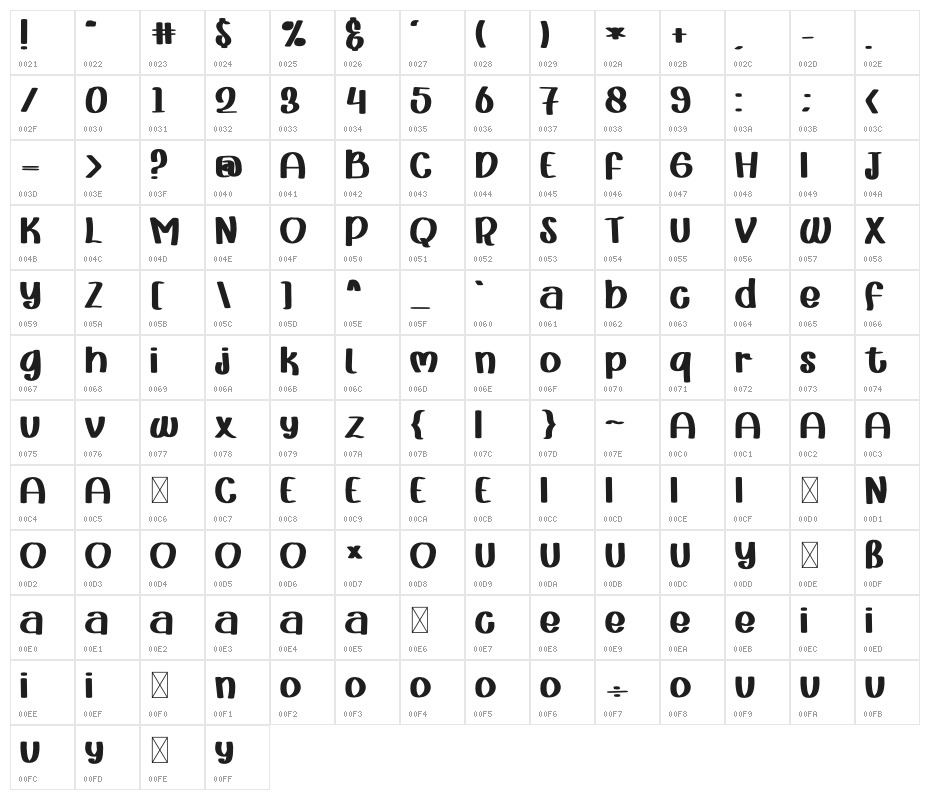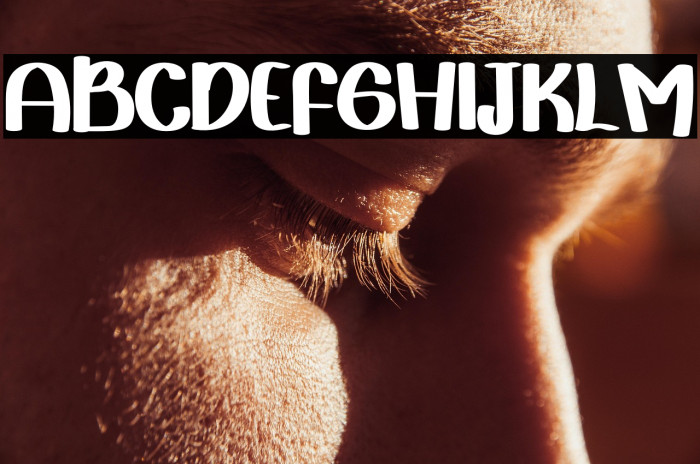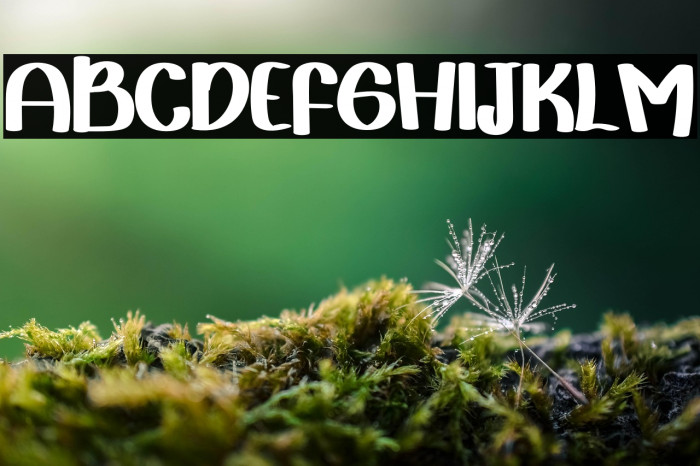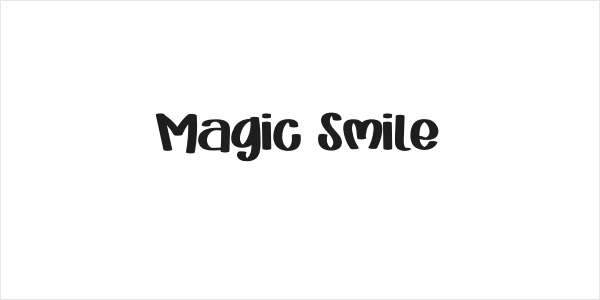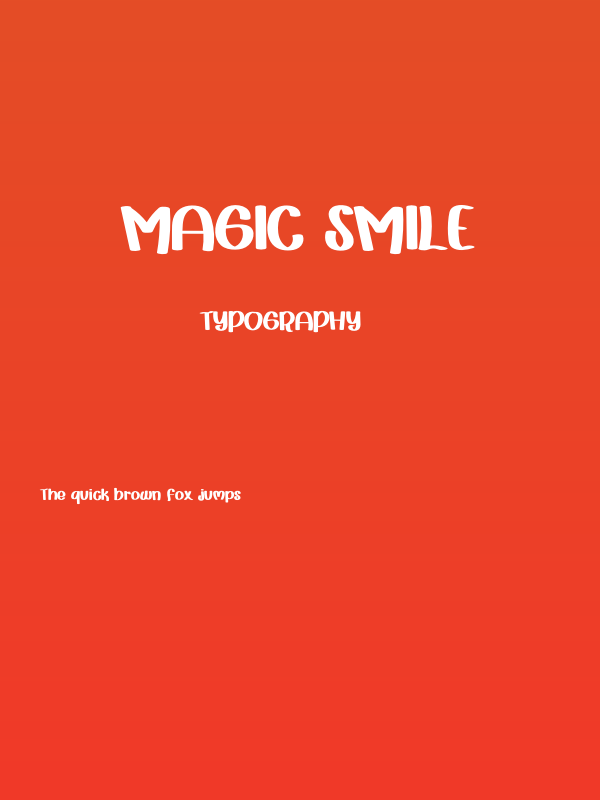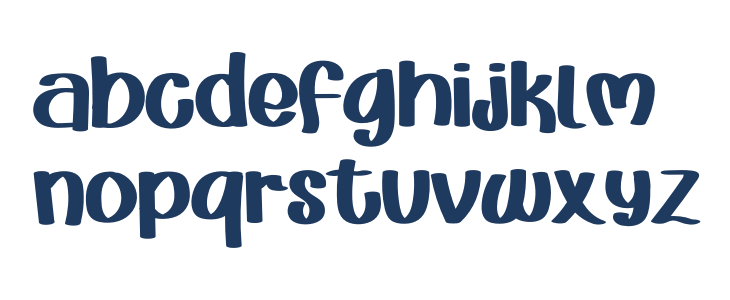
Magic Smile Font
Magic Smile Description
This playful and bold font features a whimsical style with rounded edges and a friendly appearance. The characters are thick and have a consistent weight, making them highly legible and impactful. The uppercase and lowercase letters maintain a uniform style, with a slightly exaggerated curvature that adds to the font's charm. The numbers and special characters follow the same design principles, ensuring a cohesive look across all text elements. This font's unique personality makes it suitable for projects that require a touch of fun and creativity.
| Overall Style | Playful |
| Use Case | Logos, Headlines, Posters |
| Proposed Projects | Ideal for children's books, playful branding, greeting cards, and creative posters. |